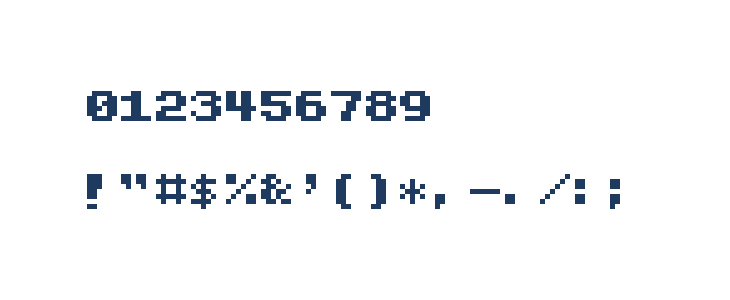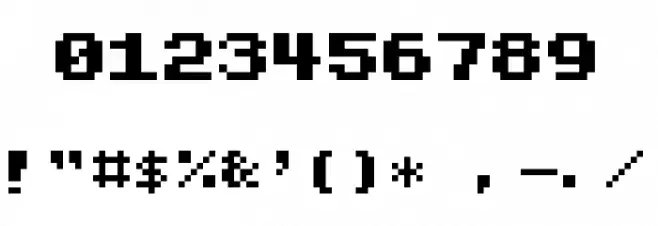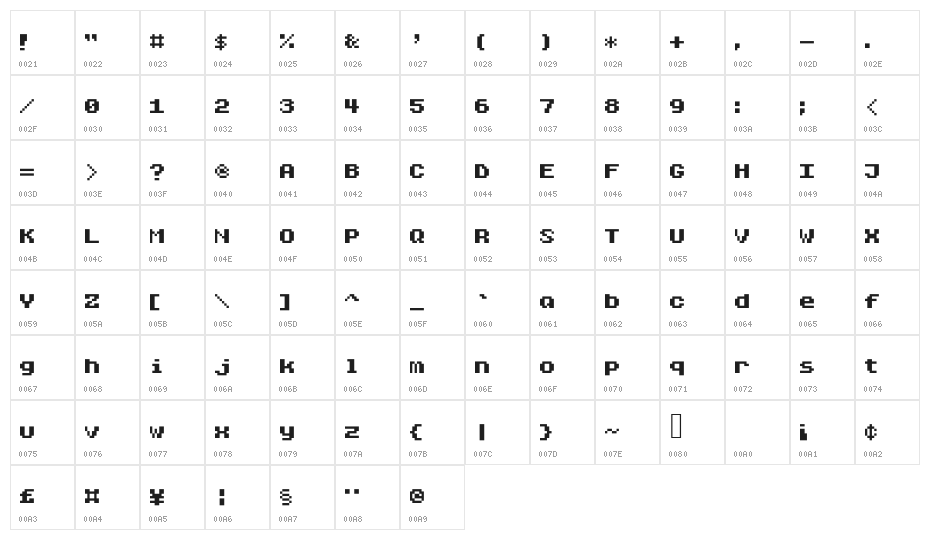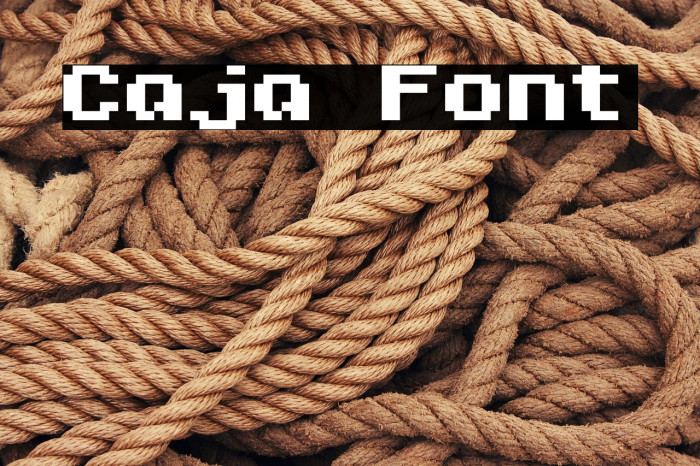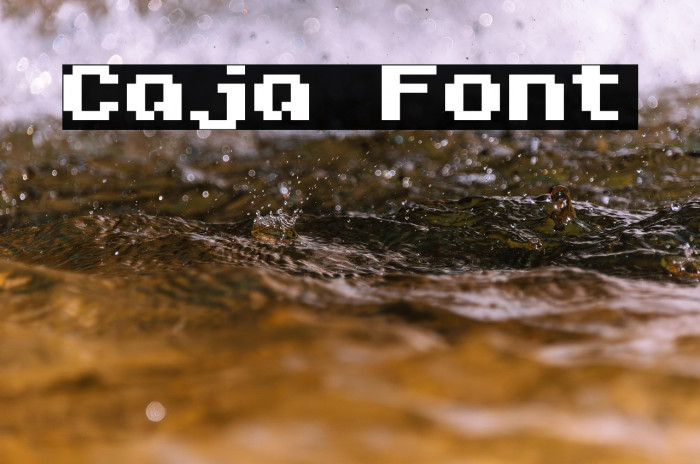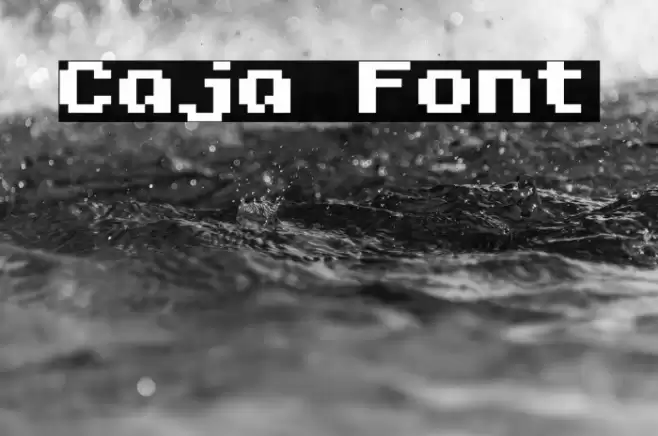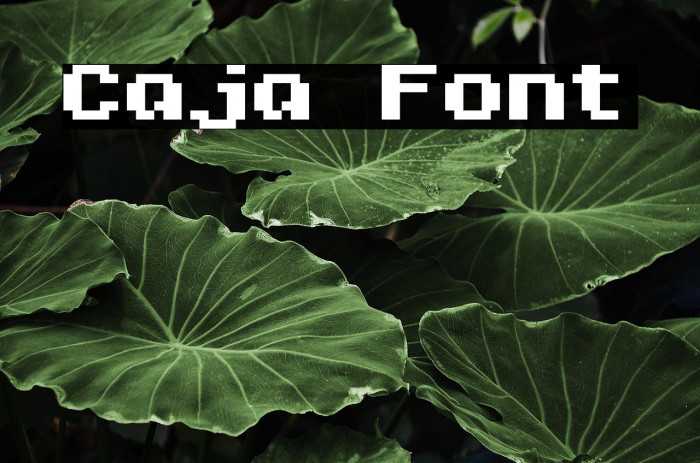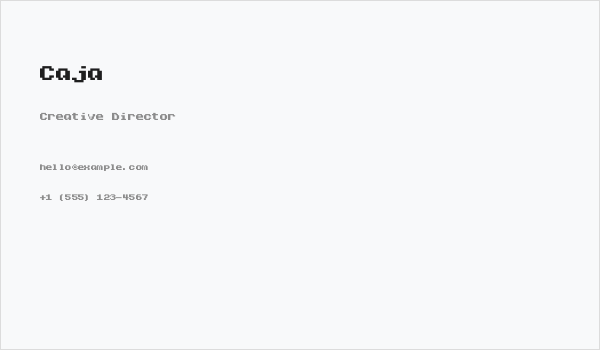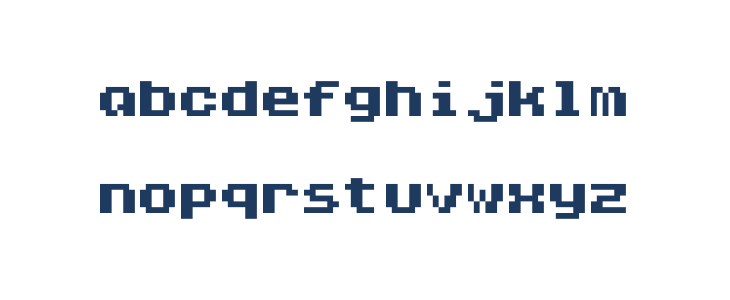
Caja Font
Caja Description
This font features a pixelated, blocky design reminiscent of early digital displays and retro video games. Each character is composed of a grid-like structure, giving it a distinctly digital and geometric appearance. The uppercase and lowercase letters maintain a consistent height, contributing to a uniform look across text. Numbers and special characters follow the same pixelated style, ensuring visual coherence. The font's simplicity and boldness make it highly legible, even at smaller sizes, while its unique style adds a nostalgic touch to any design.
| Use Case | Logos, Headlines, Digital Art |
| Proposed Projects | Ideal for retro-themed designs, video game graphics, digital art projects, and any creative work that seeks to evoke a sense of nostalgia. |